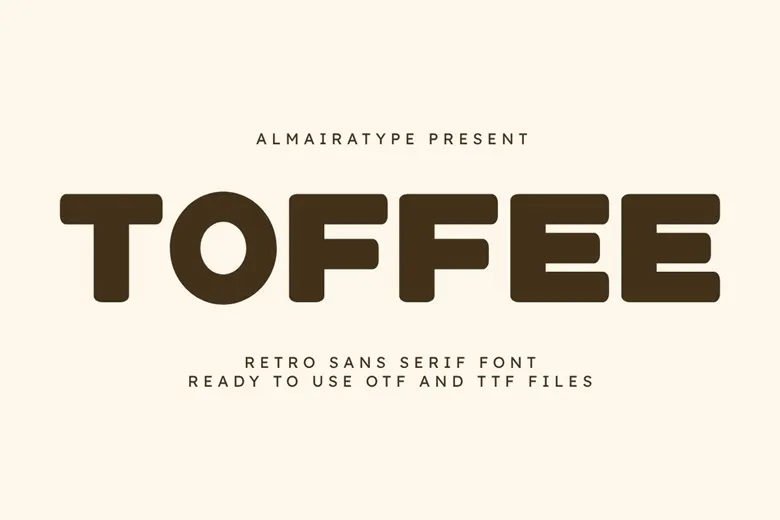
Toffee Font
Toffee is a bold retro sans-serif font that adds warmth and a vintage feel to your creative work. Its wide shape, strong look, and rounded edges mix 70s nostalgia with modern design trends.
Toffee Sans Serif Font